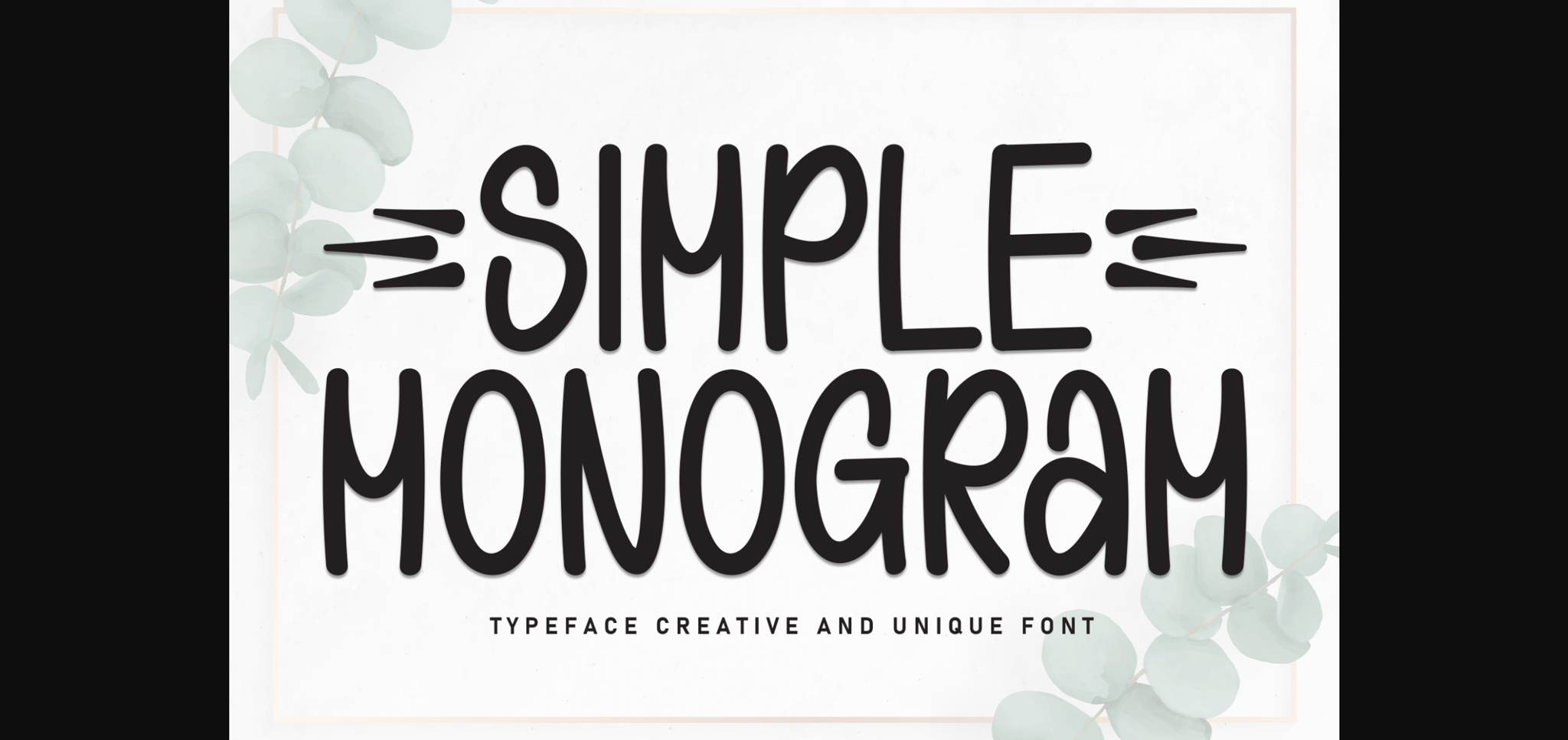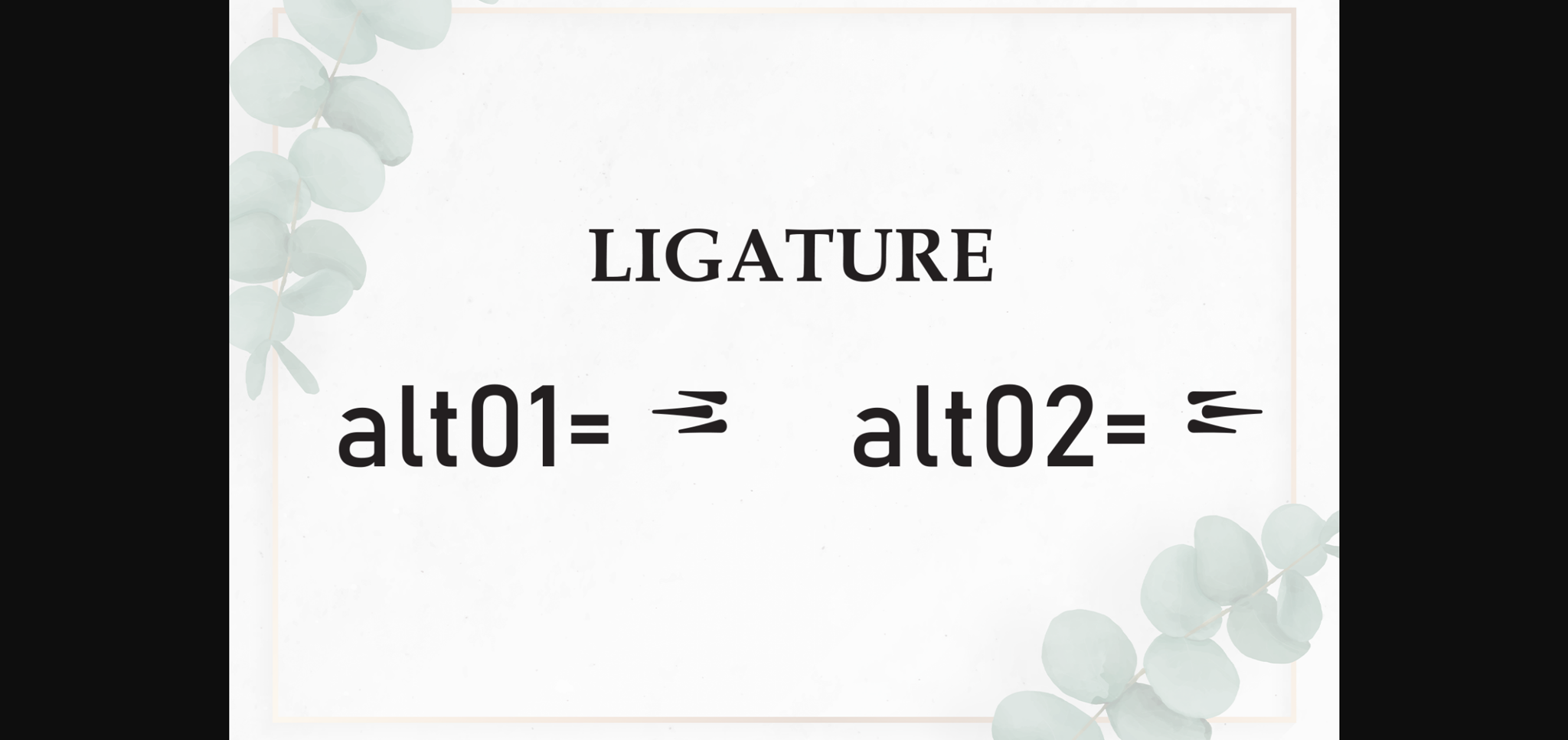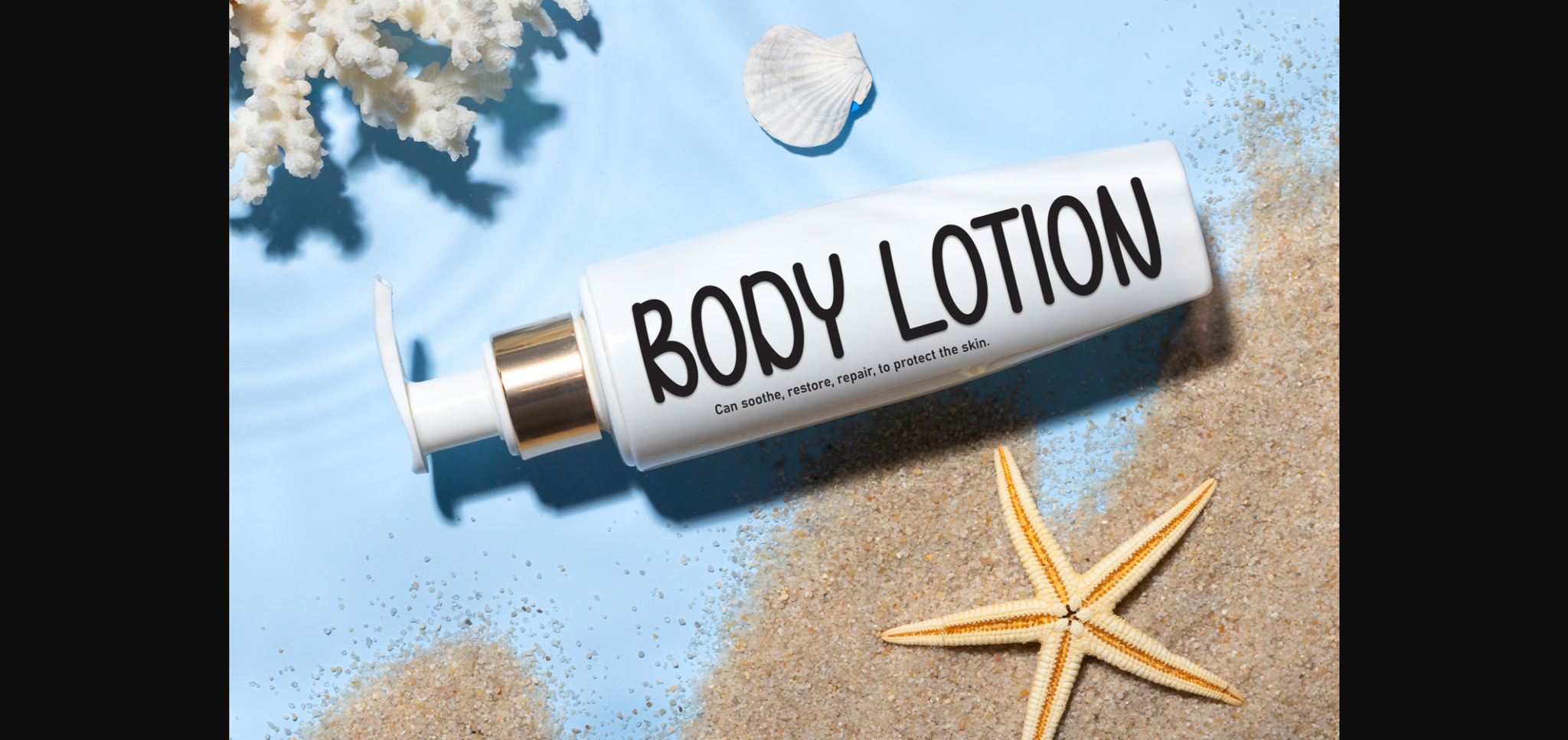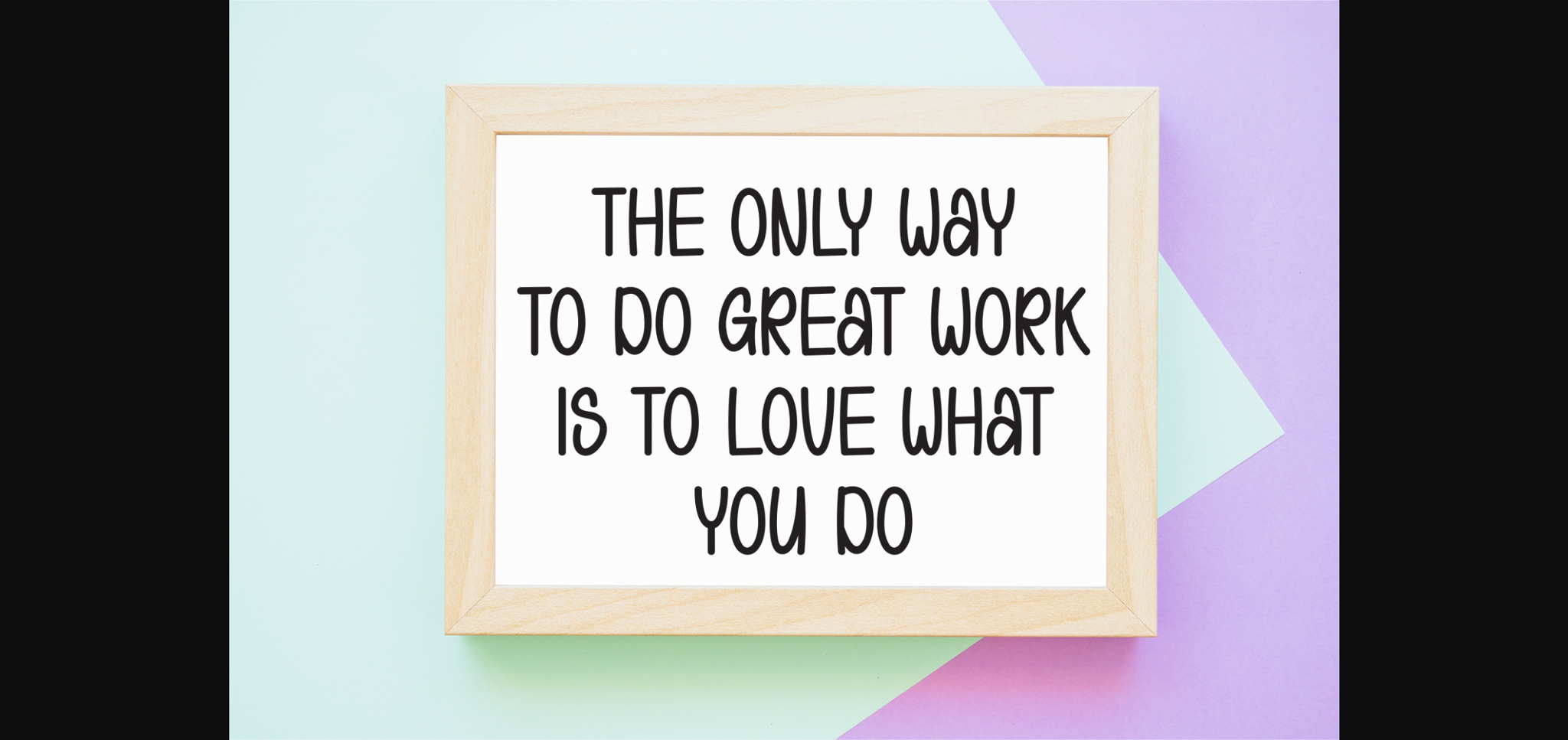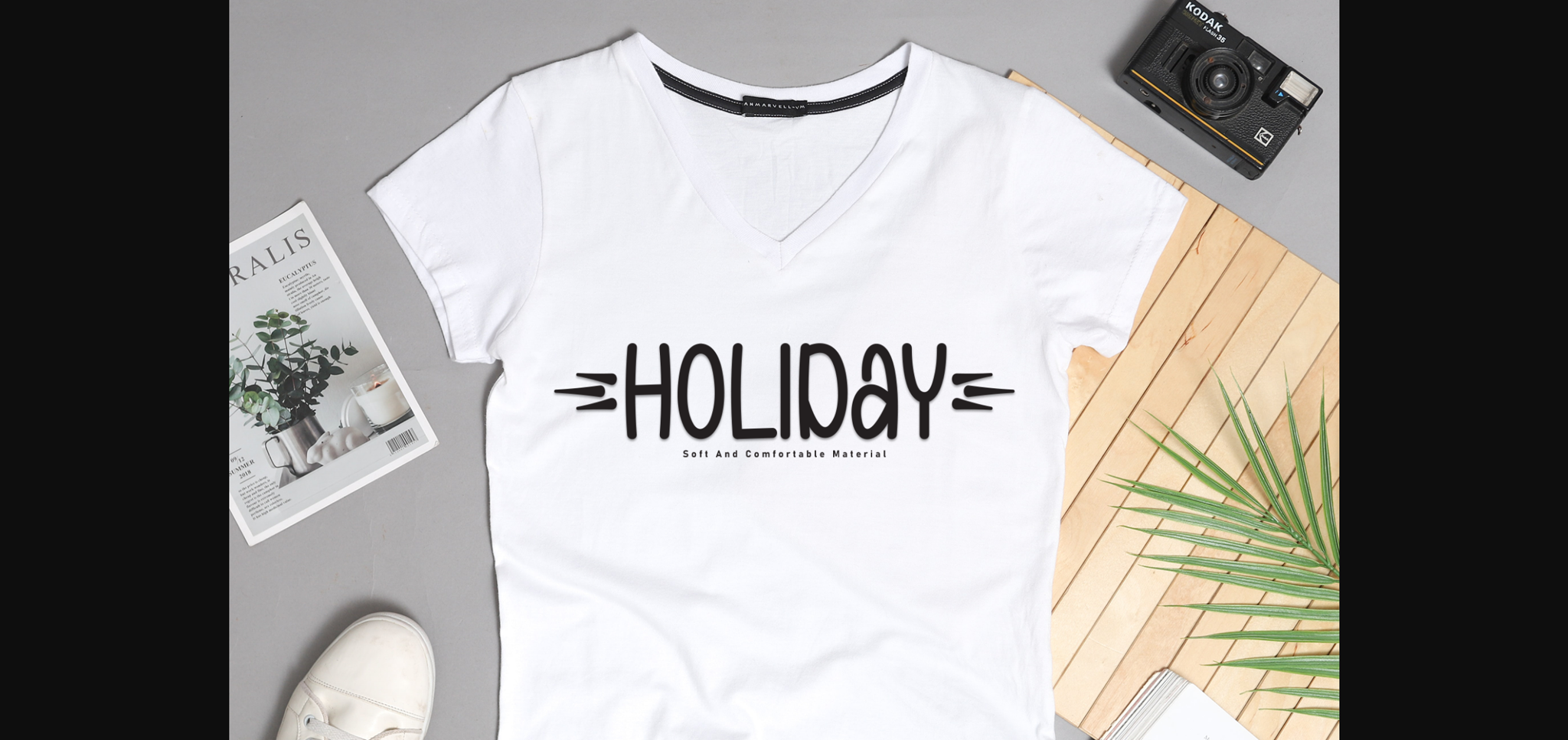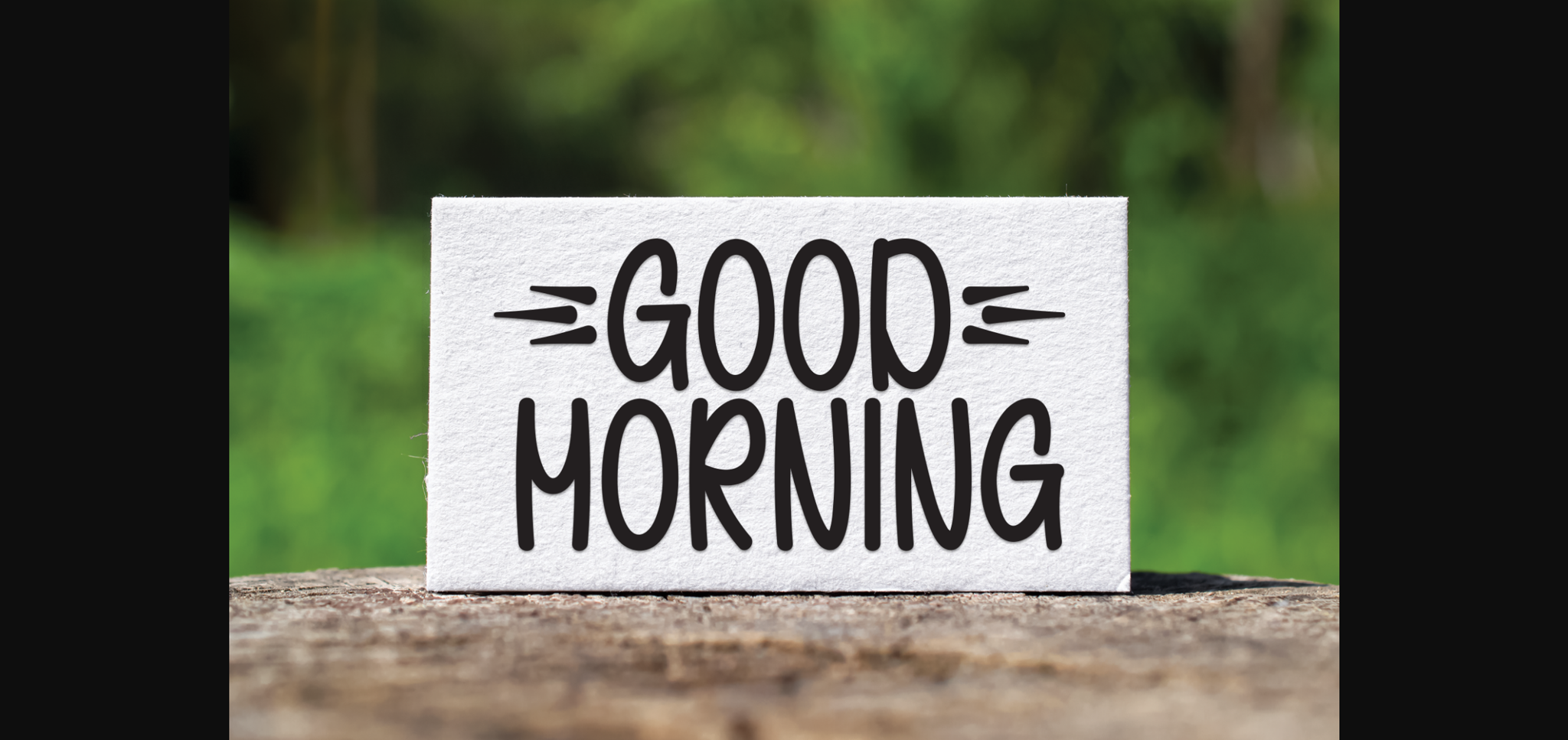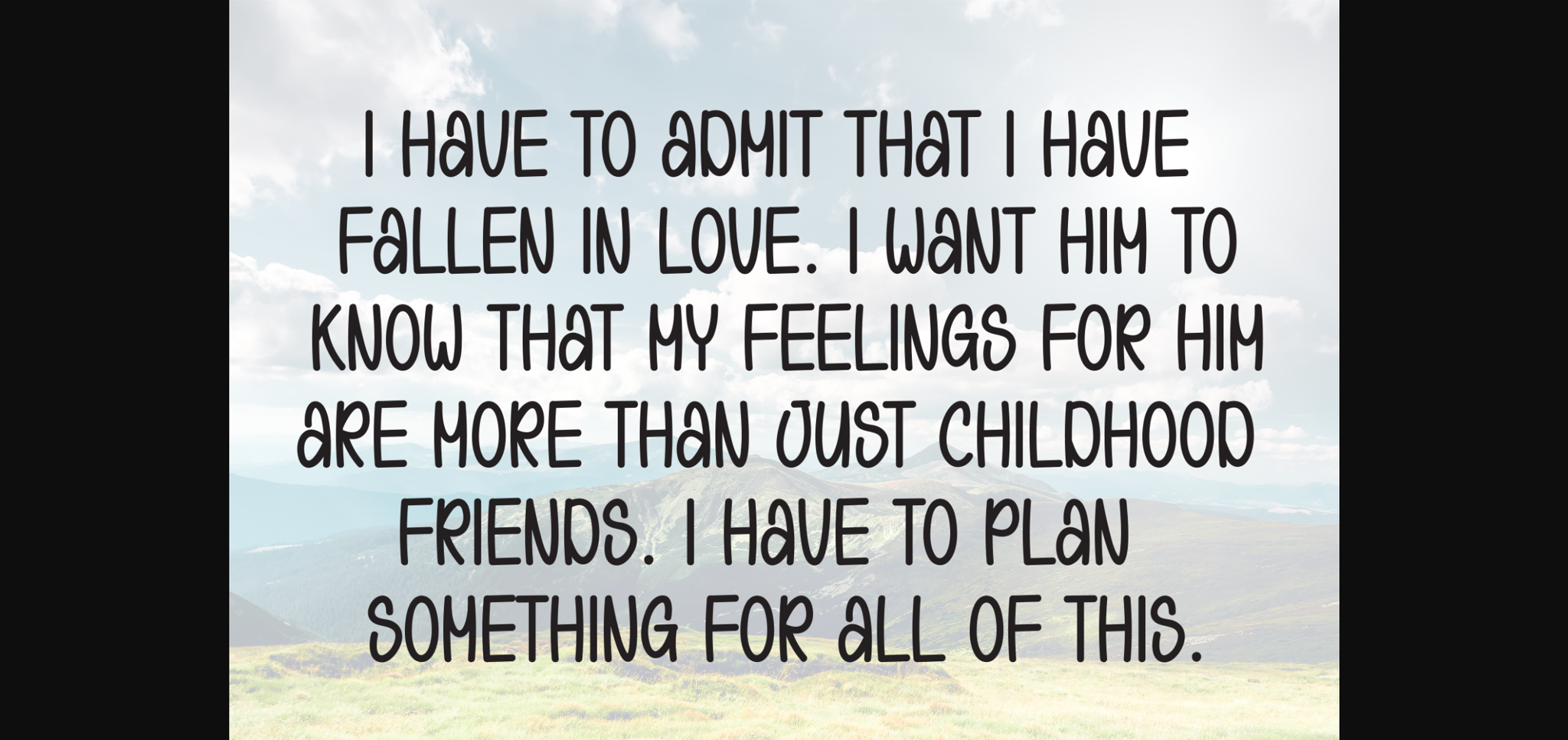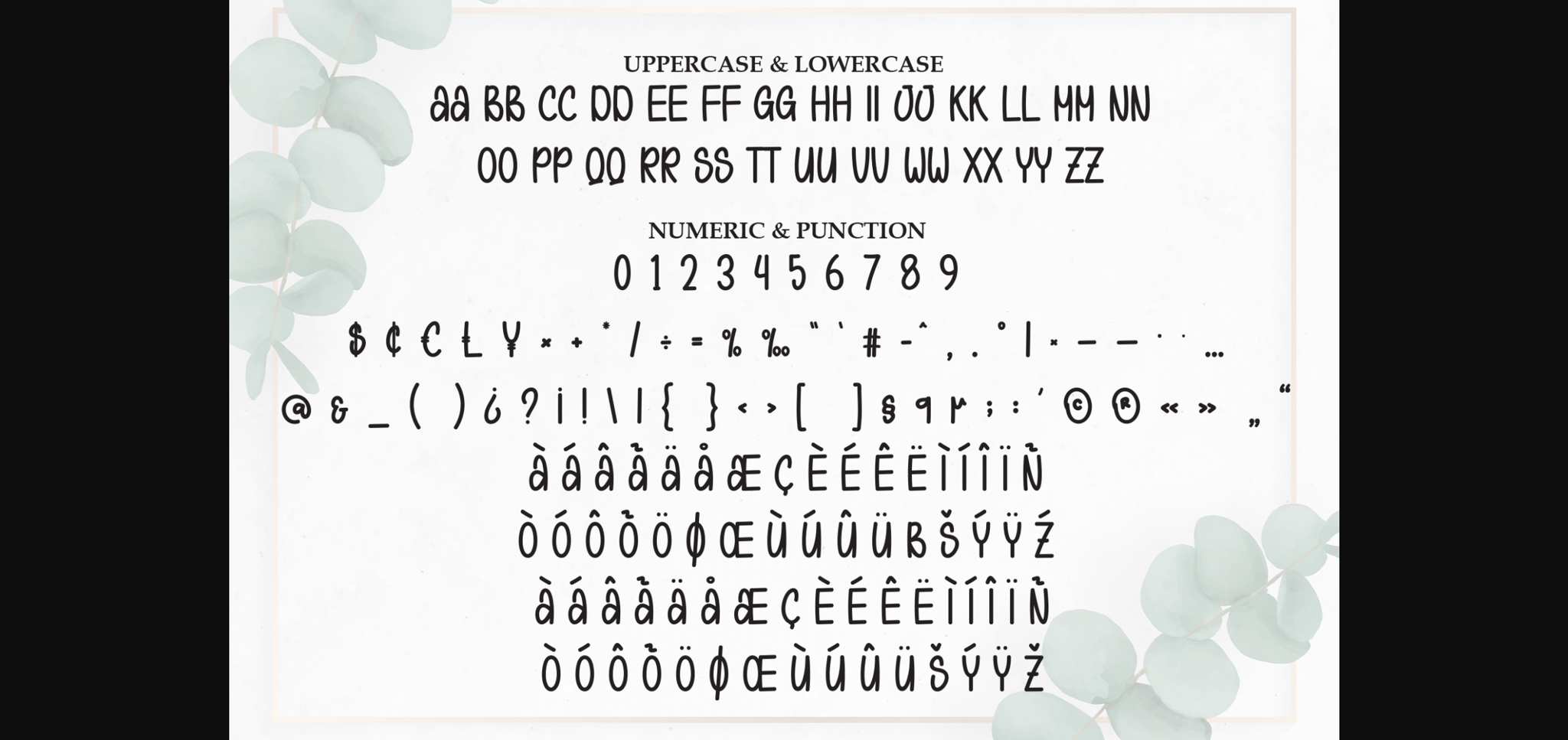
Simple Monogram Font
About Simple Monogram Font
Simple Monogram is a neat and casual sans-serif font that combines simplicity with a touch of warmth. With clean lines and balanced proportions, it exudes a friendly and approachable vibe. Perfect for various design projects, Simple Monogram brings a modern and versatile style to your typography repertoire.